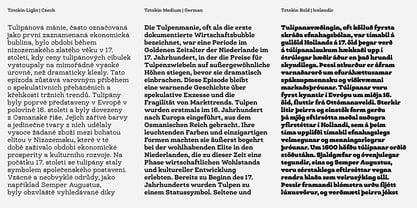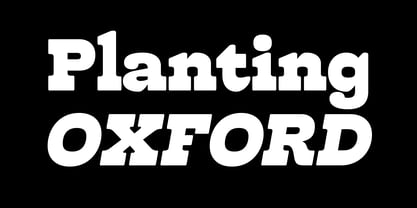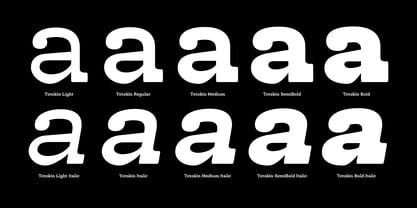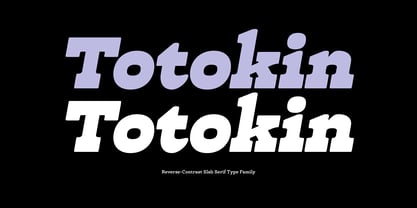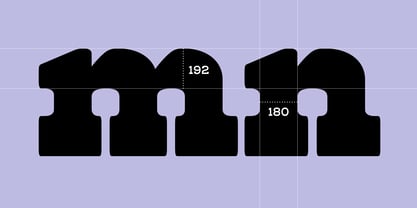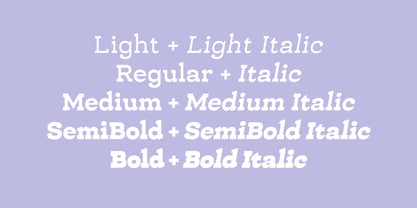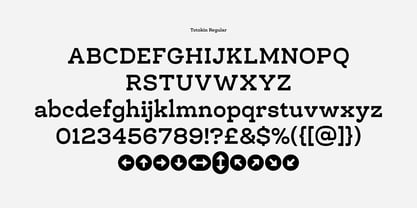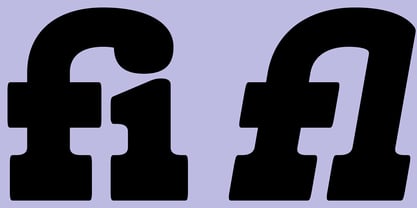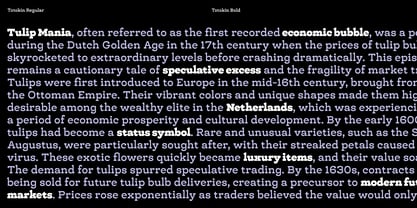
Totokin
por Inhouse Type
La familia tipográfica Totokin fue diseñada por Mariya Lish y publicada por Inhouse Type. Totokin contiene 10 estilos y opciones de paquete familiar. Más información sobre esta familia
Totokin is a moderately reverse-contrast slab serif typeface, distinguished by its unique blend of soft curves, gentle forms, and sturdy structure. This defining style creates a harmonious balance between readability and visual appeal, making it a versatile choice for various design applications. The reverse-contrast feature, where horizontal strokes are thicker than vertical ones, lends Totokin a subtle but noticeable personality, setting it apart from traditional slab serif typefaces.
While its primary purpose is for text, Totokin’s approachable yet robust aesthetic also makes it suitable for branding, editorial design, packaging, and signage. The softness in its letterforms adds a welcoming touch, while its solid construction ensures legibility and impact, even at smaller sizes.
Diseñadores: Mariya Lish
Fundición: Inhouse Type